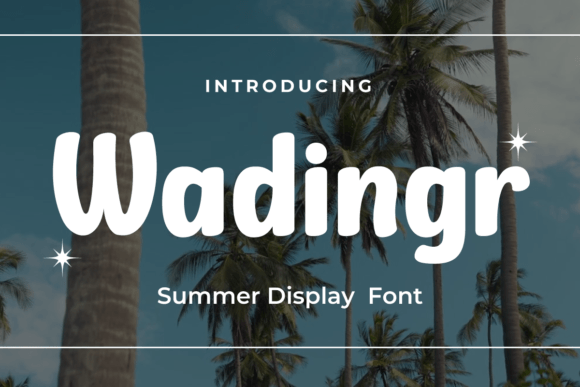
Dive into the Essence of Summer with Wadingr Font: Your Ticket to Sun-Kissed Designs
Prepare to embark on a typographic journey like no other as you discover Wadingr Font, the display font that captures the very essence of summer. Dive into a world where your designs radiate the warmth and playfulness of the season, leaving an indelible mark on your audience.
With its unique and captivating style, Wadingr Font adds an instant touch of summer to your projects. Envision beachfront posters that transport viewers to sandy shores, sun-kissed event invitations that exude a vibrant energy, and tropical-themed brochures that immerse readers in the beauty of nature. The possibilities are endless, and Wadingr Font is the key to unlocking your creative potential.
Crafted with meticulous attention to detail, Wadingr Font ensures that your text radiates the warmth and playfulness of summer. Its versatility shines through in every application, effortlessly adapting to various design needs. From poolside party banners that capture the essence of summer fun to tropical-themed brochures that transport readers to paradise, Wadingr Font is the perfect companion for your creative journey.
And the best part? Wadingr Font supports multiple languages, making it accessible to a global audience. No matter where your creative journey takes you, Wadingr Font will help you express the sun-soaked vibes of summer, transcending borders and connecting with audiences worldwide.
Dive into the world of Wadingr Font and make every project a summer-inspired masterpiece. Elevate your creativity and let the spirit of the season shine through in your designs. Unleash the power of Wadingr Font and experience the joy of creating designs that radiate the warmth and beauty of summer.
With Wadingr Font, every project becomes a sun-kissed masterpiece, leaving your audience captivated by the beauty of the season. So, embrace the spirit of summer, immerse yourself in the creative possibilities, and let Wadingr Font guide you towards typographic excellence.